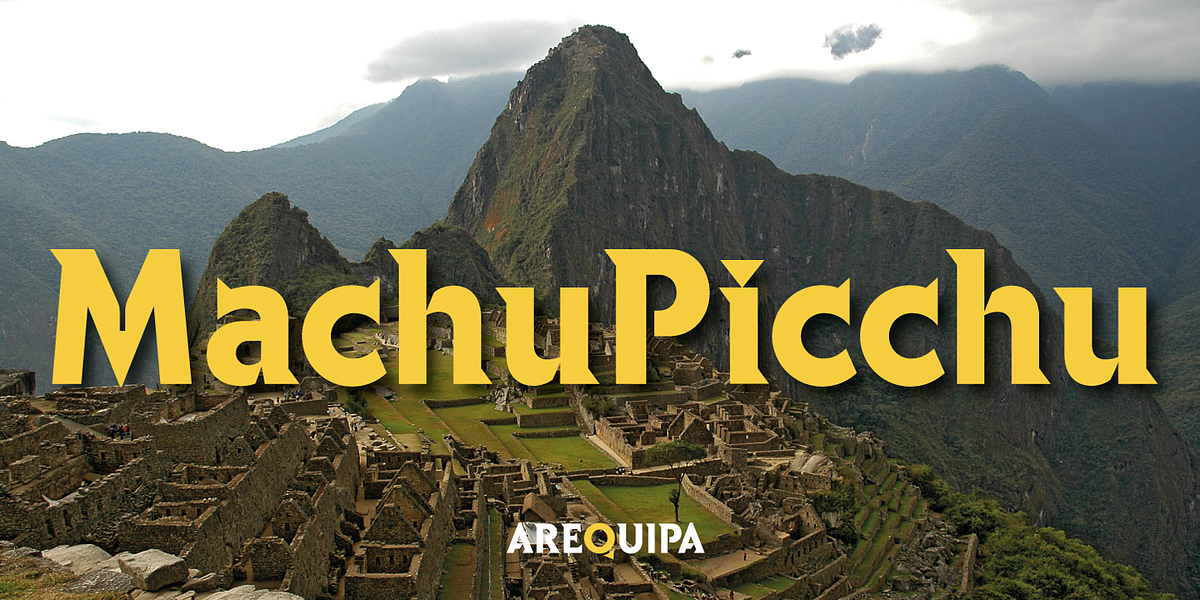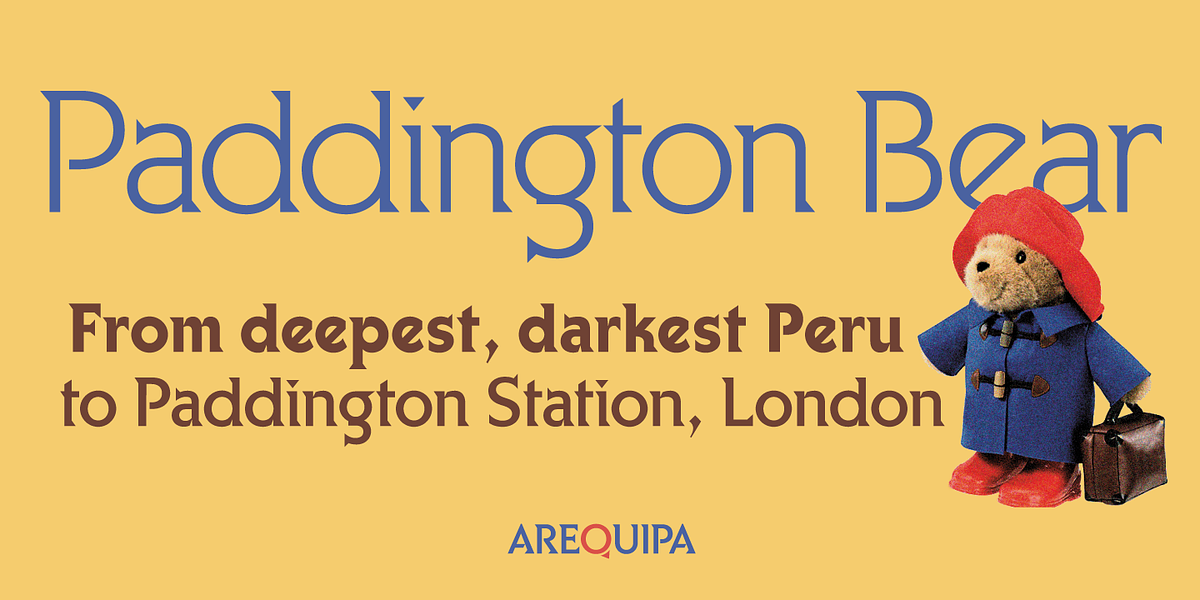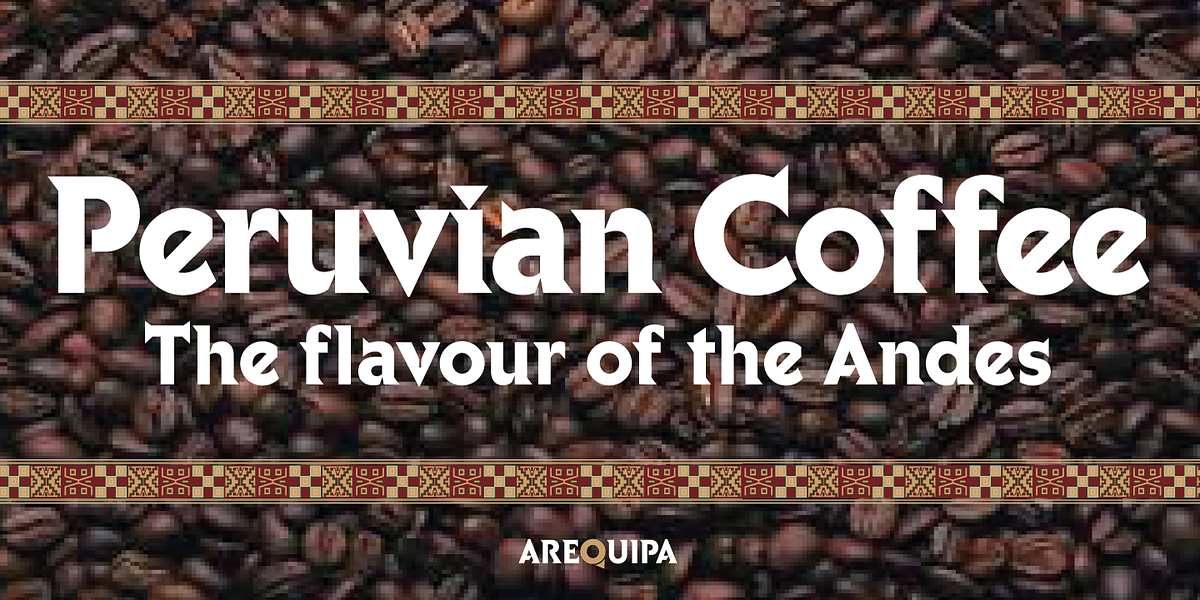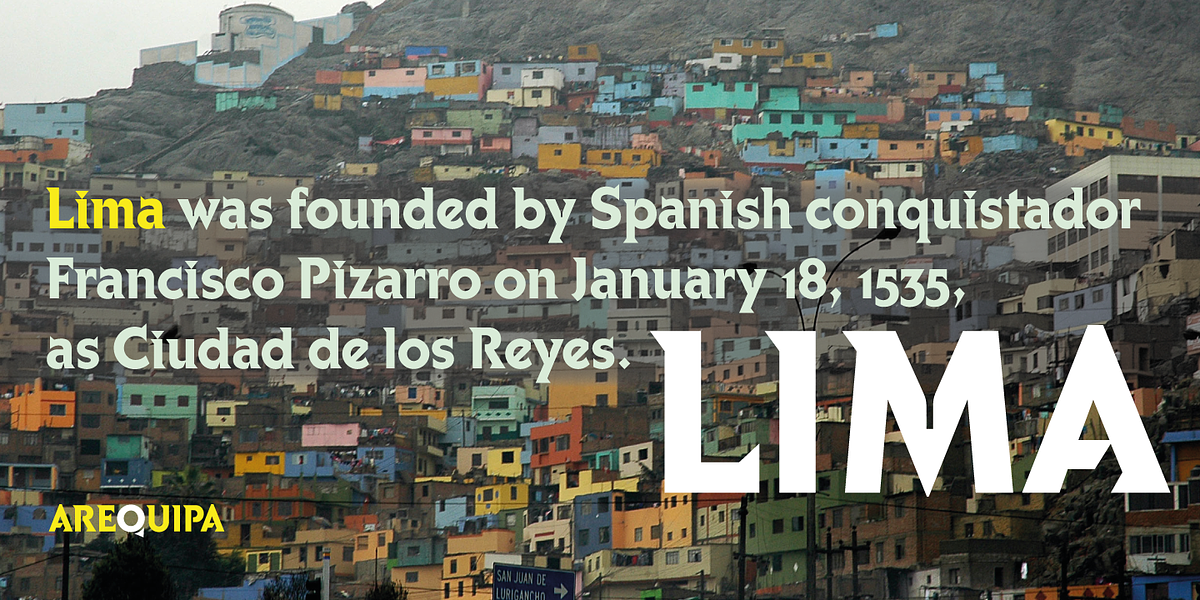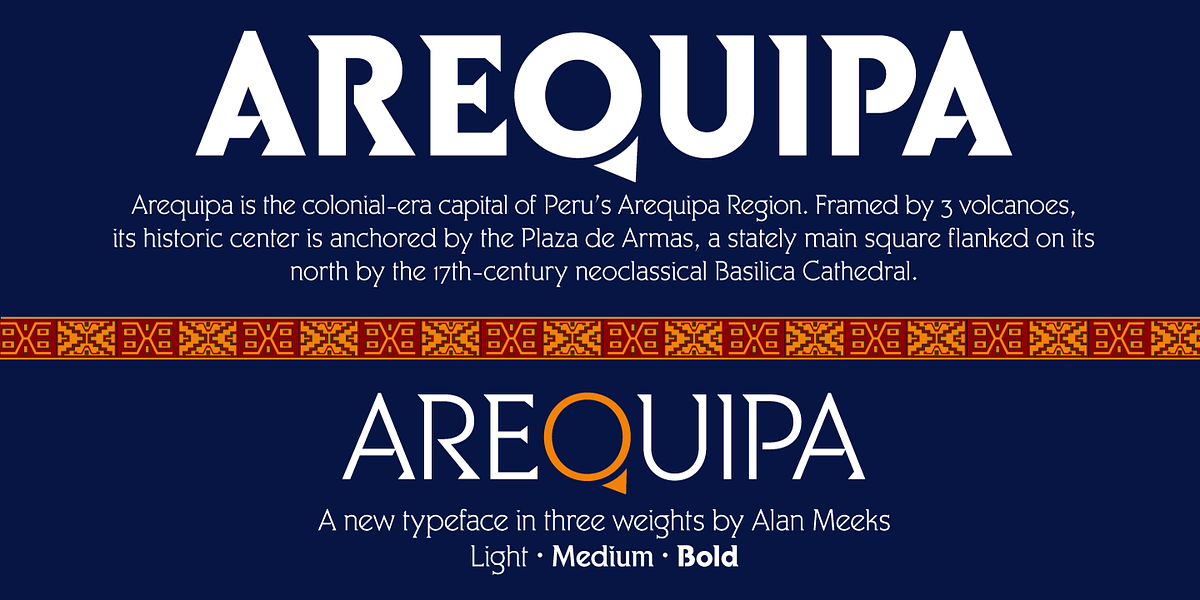
Arequipa
Arequipa is a serif font characterized by its geometric serifs and a design influenced by Aztec and Inca aesthetics. Its bold weight excels in headlines, while lighter weights are suitable for shorter text passages. Unique features like the geometric shape of serifs, ij dots, full points, commas, and the cap Q contribute to Arequipa's distinctive appearance.